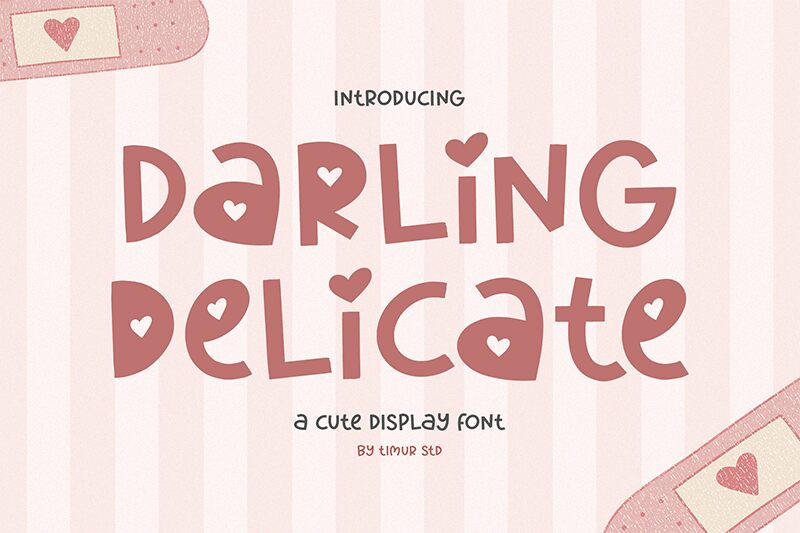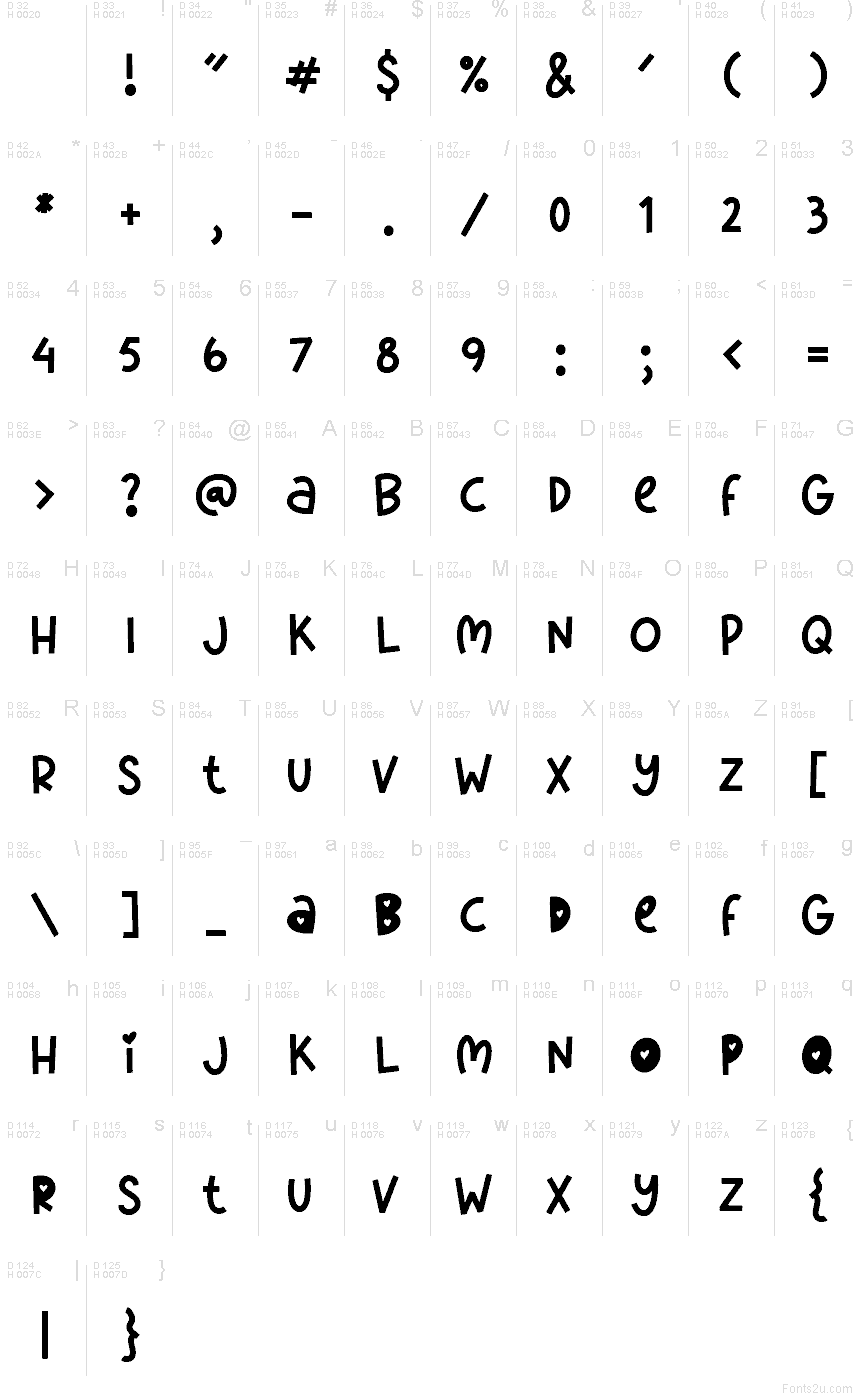
Darling Delicate
Darling Delicate font by Timur Type is a free holiday valentine font that wraps your words in soft, candy-like curves and bubbly hearts. The rounded strokes feel hand-cut and playful, with dot details and heart shapes that make every word look like it belongs on a love note or gift tag. There’s an easy, handwritten wobble to the letters, so even bold headlines keep a sweet, approachable charm.
Using Darling Delicate, you can brighten Valentine cards, wedding favors, kids’ party invitations, stickers, social media posts, and cozy brand logos. This free font shines at larger sizes, where its quirky curves and hearts can really be seen. For longer text, pair it with a clean, simple sans serif so the message stays readable while Darling Delicate handles all the romance and fun.